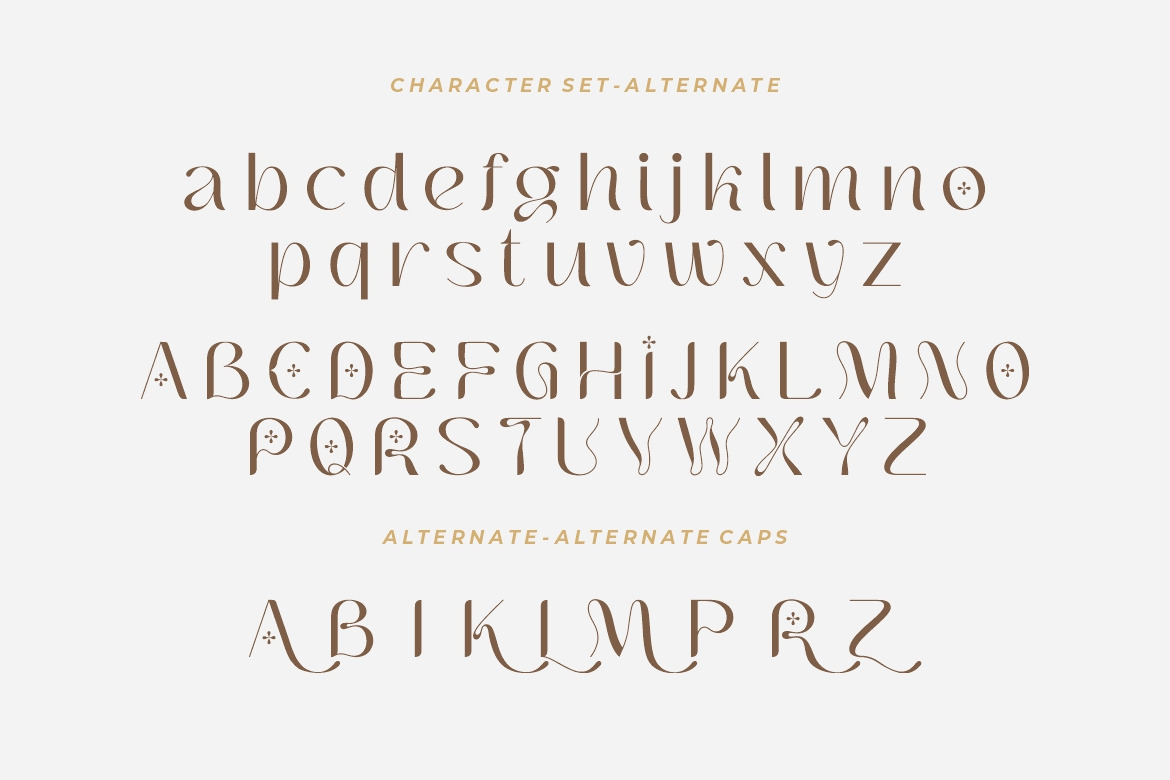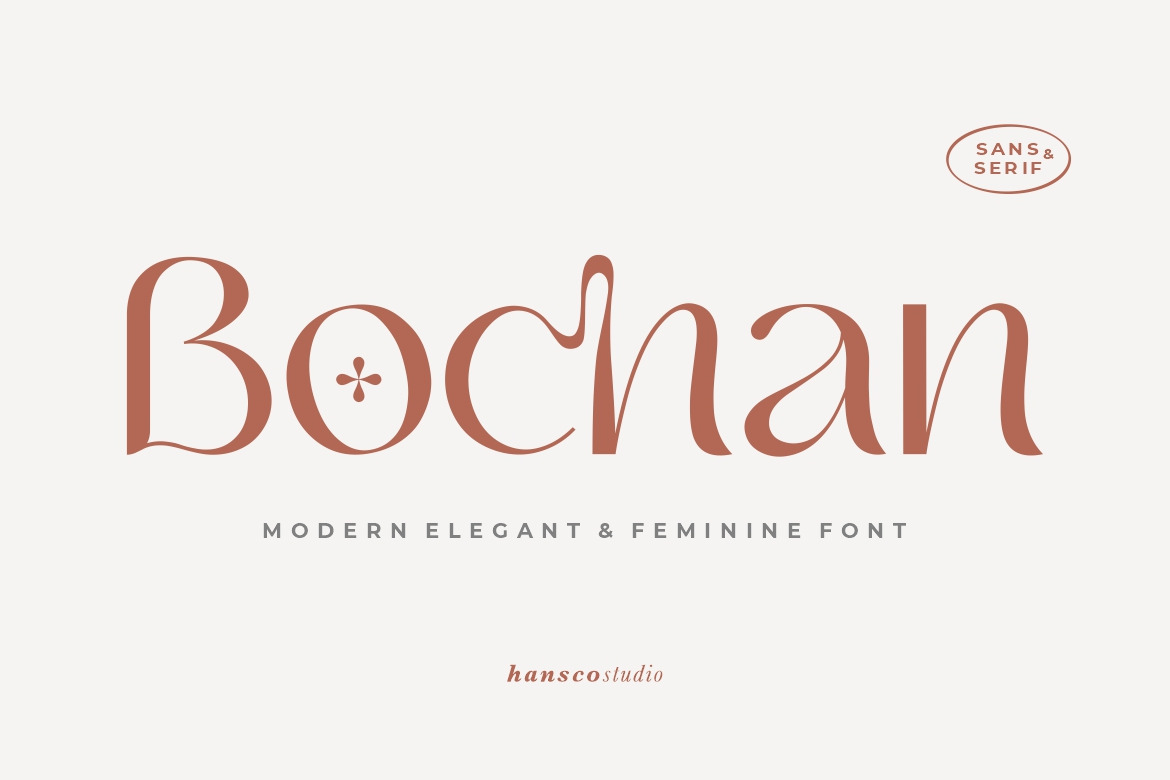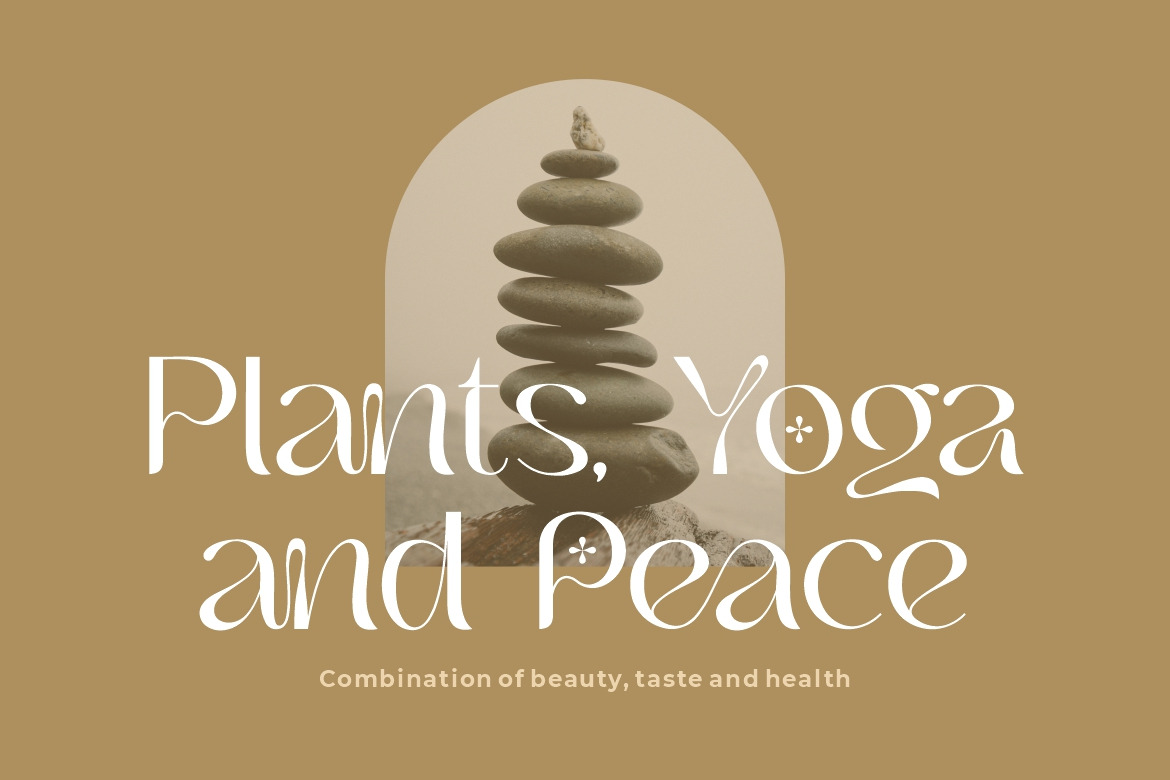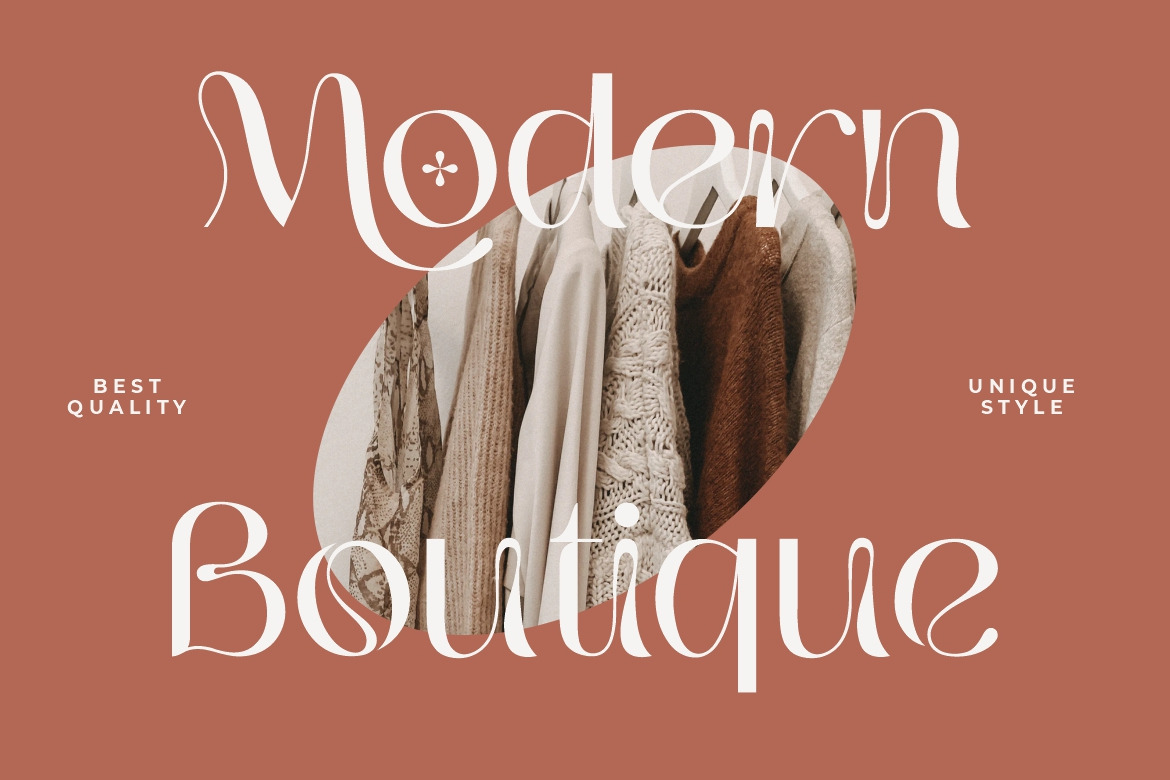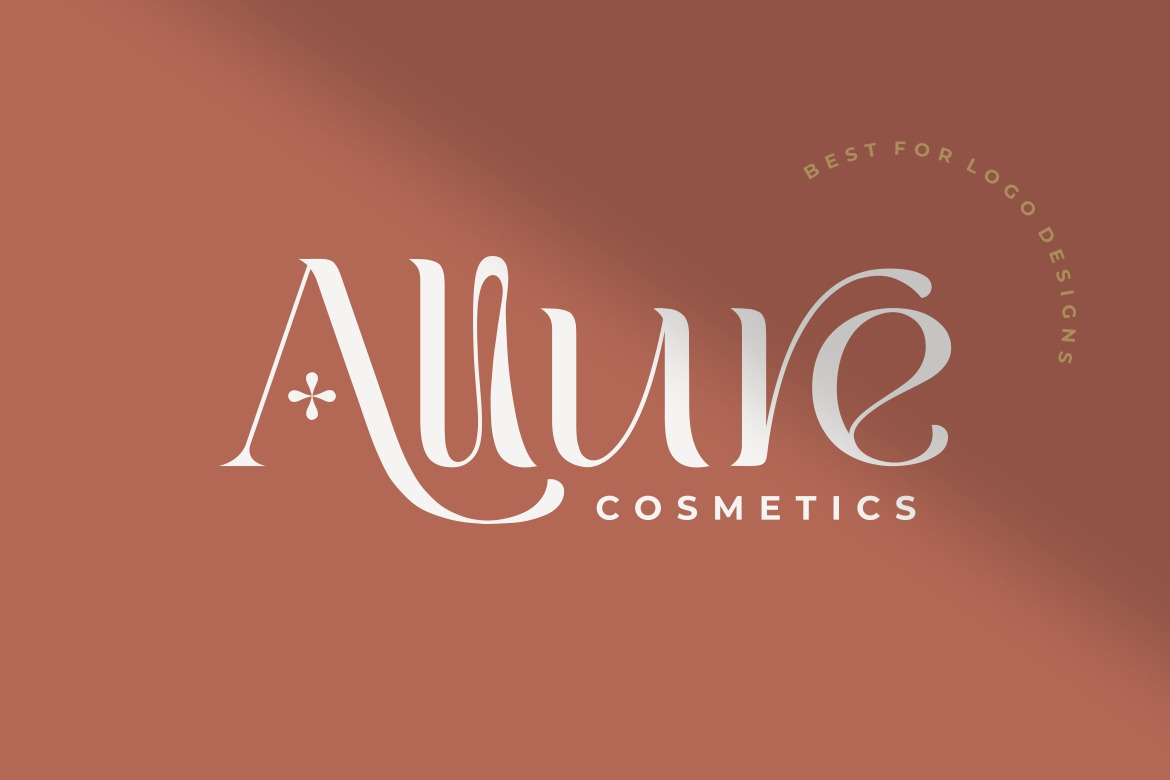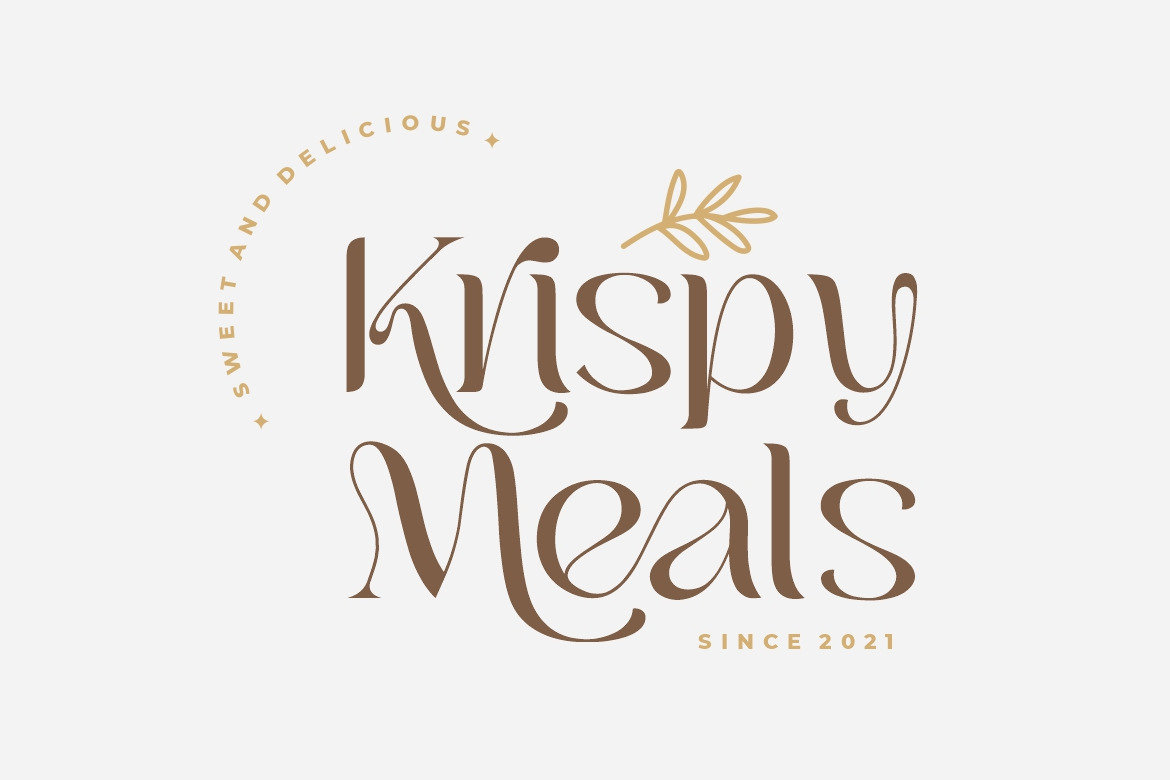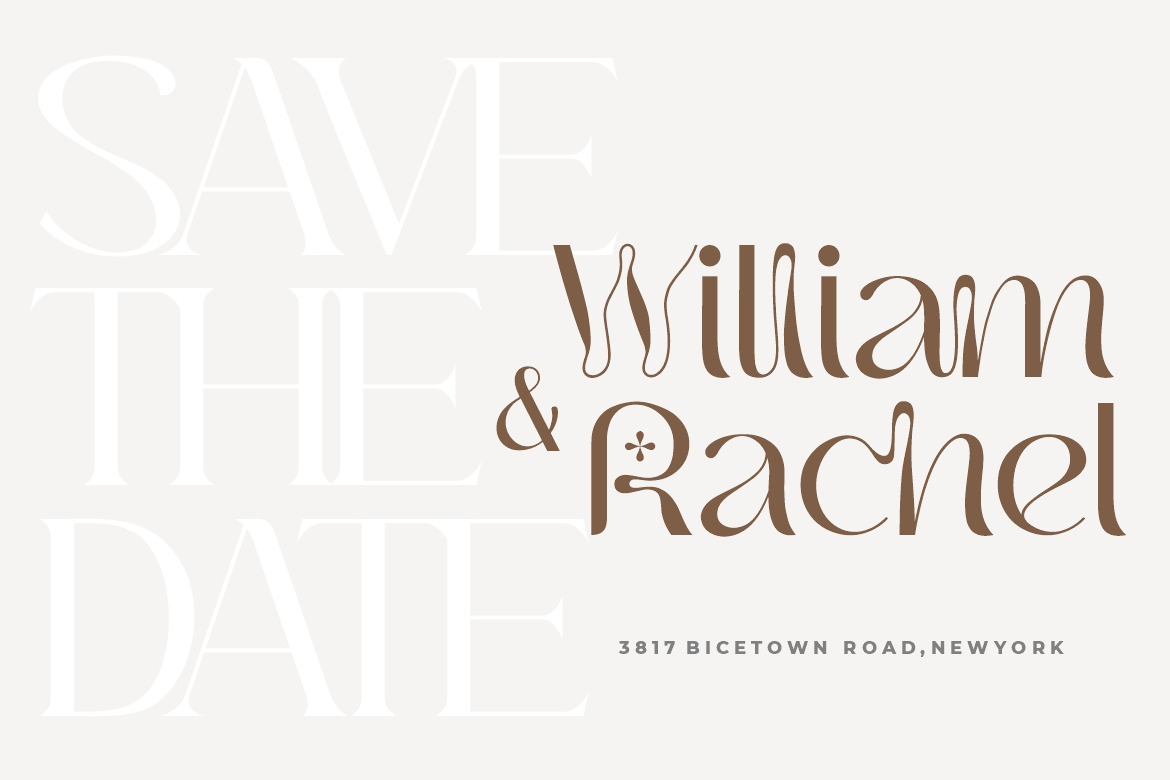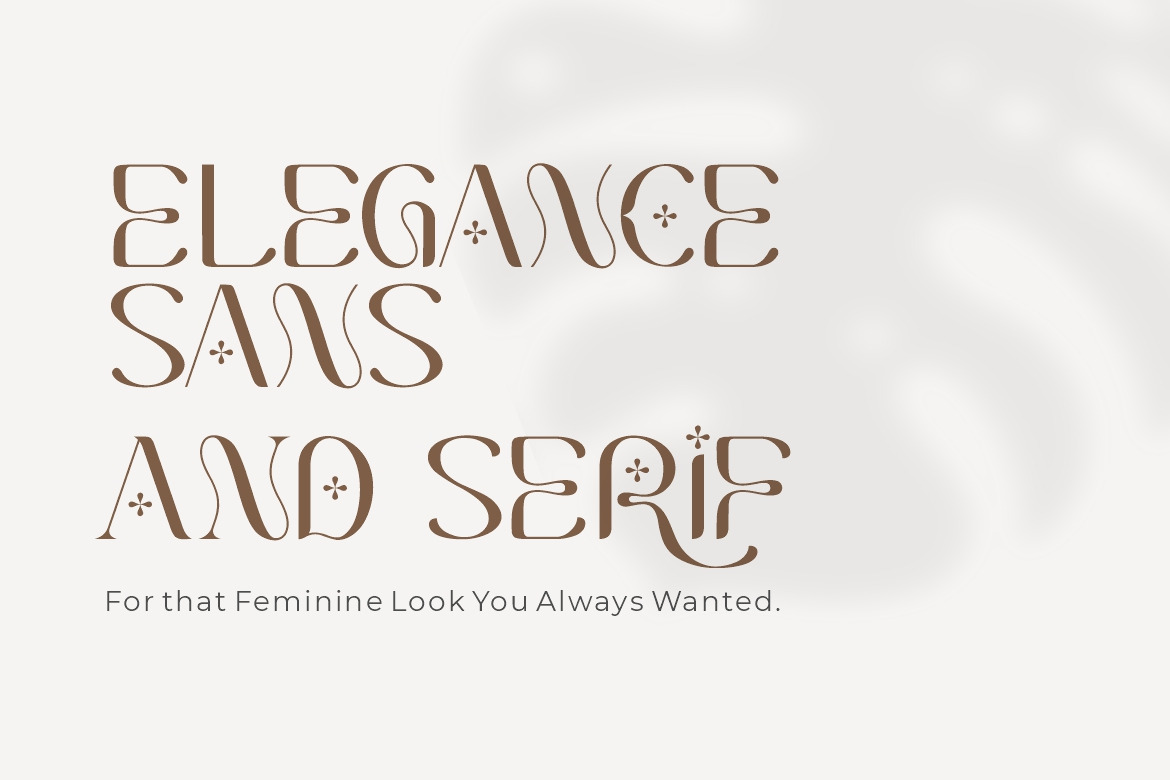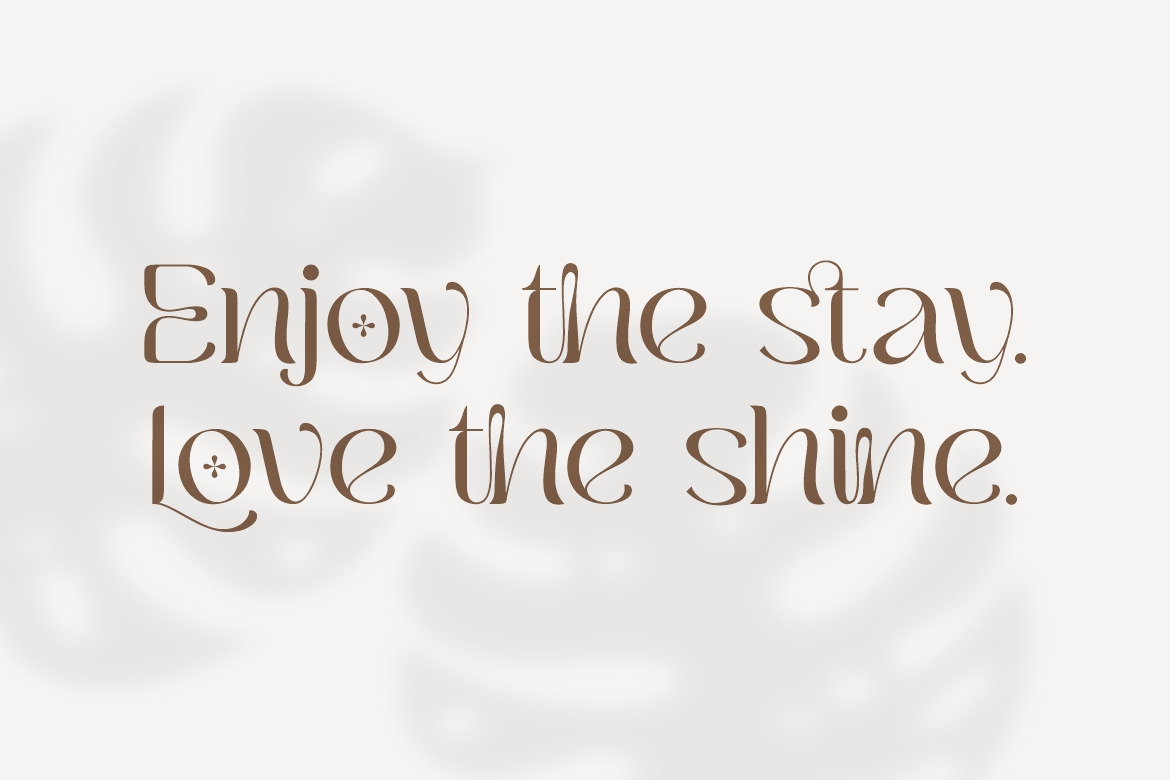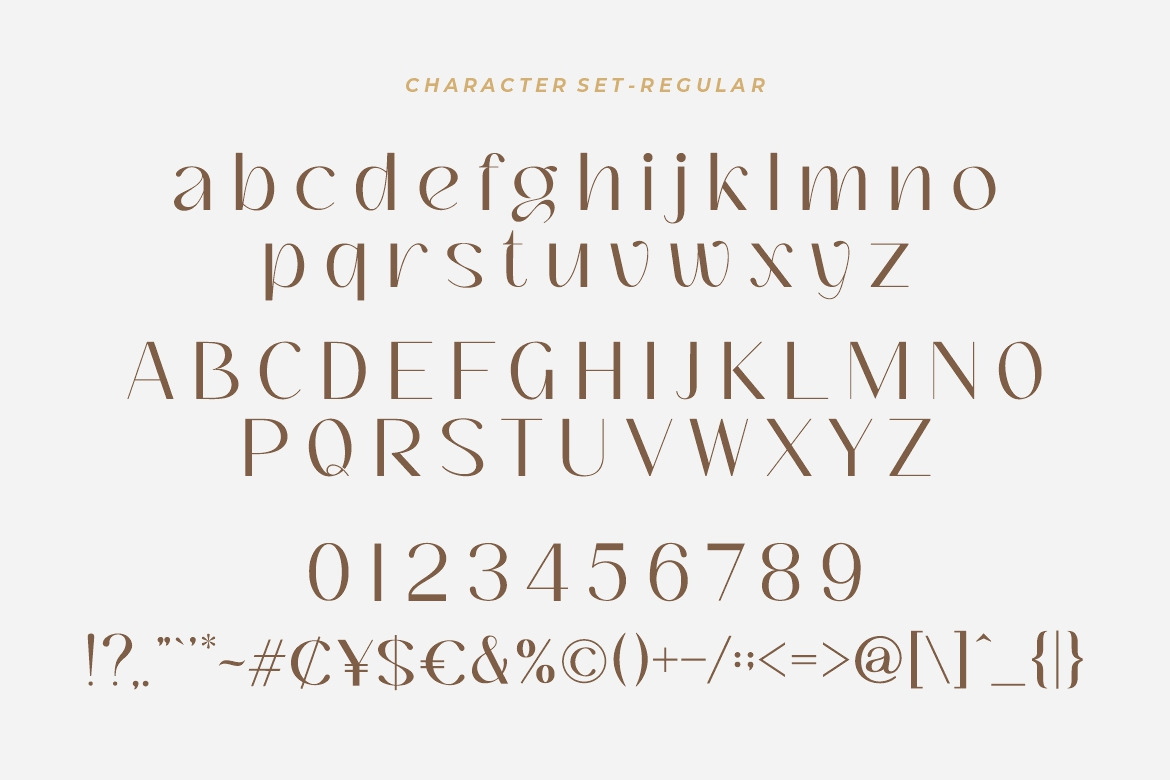
Bochan is incredibly elegant and beautifully rounded sans serif and also include with serif version font that will add a timeless look to any design project!. Very suitable for logo, brand identity pack, packaging designs and many more.. This font is PUA encoded which means you can access all of the glyphs and swashes with ease! Features : - uppercase & lowercase - numbers and punctuation - multilingual - alternates - PUA encoded We highly recommend using a program that supports OpenType features and Glyphs panels like many of Adobe apps and Corel Draw, so you can see and access all Glyph variations. *Enjoy!* | Bochan - Elegant Feminine Font | HansCo Studio